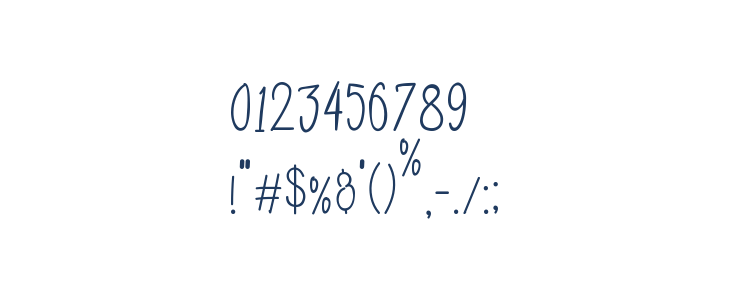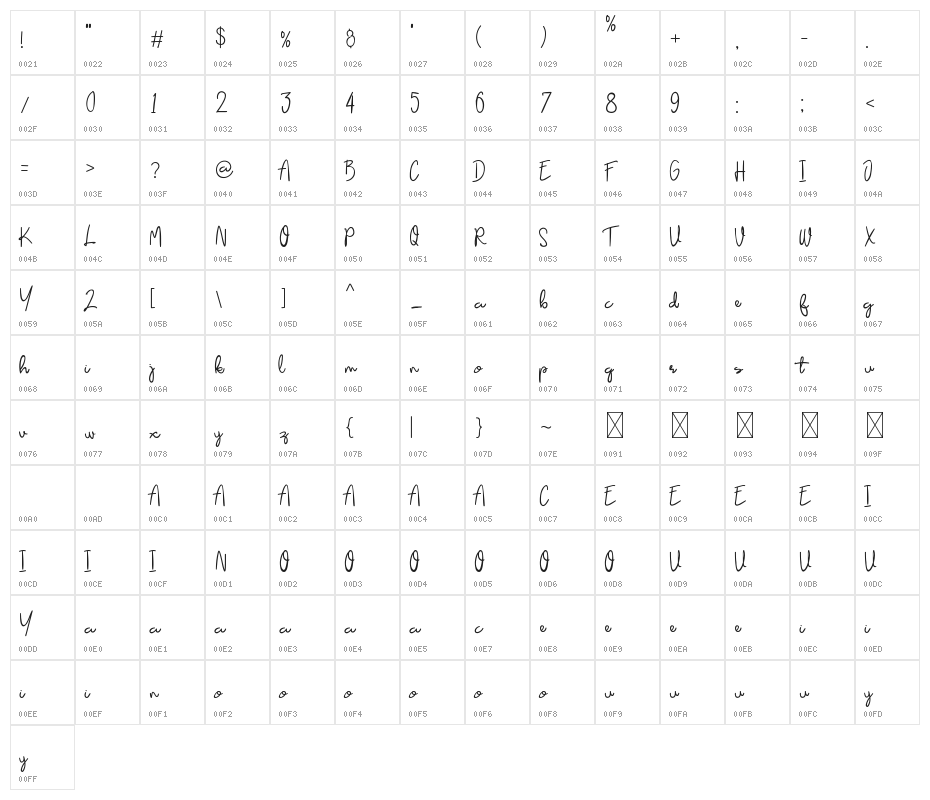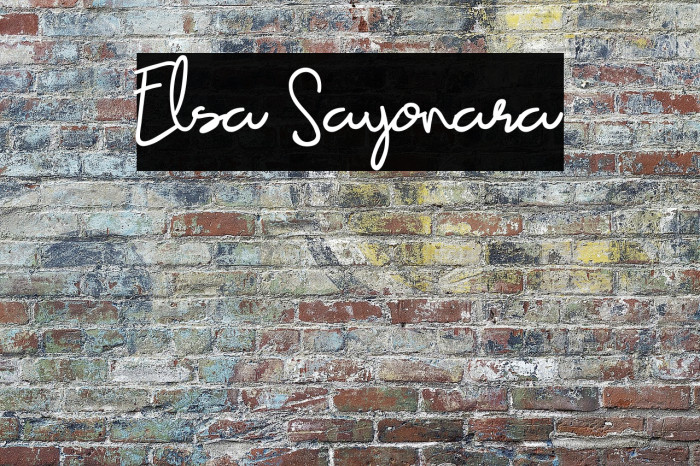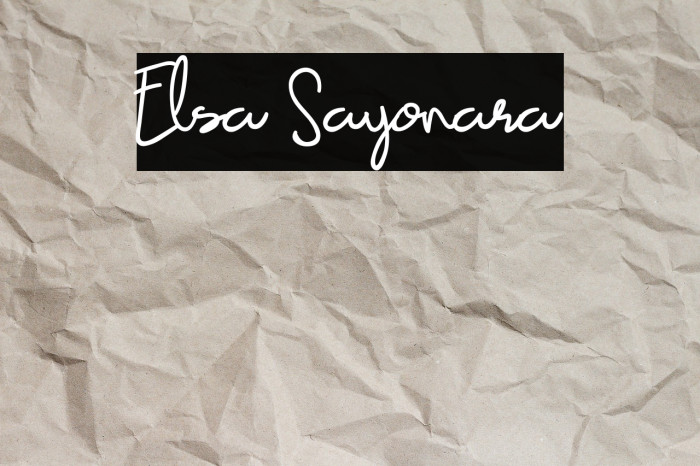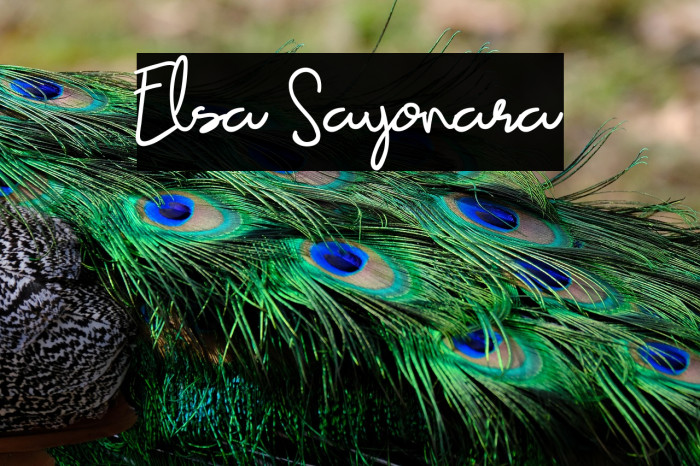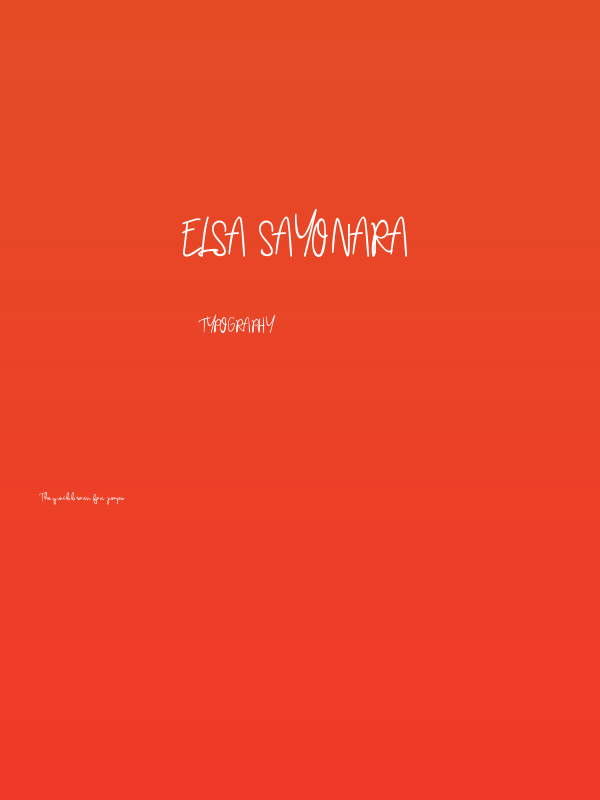
Elsa Sayonara Font
Elsa Sayonara Description
This font exhibits a playful and casual handwritten style, characterized by its fluid and dynamic strokes. The uppercase letters are tall and slightly narrow, with a whimsical flair that adds a touch of personality. The lowercase letters maintain a consistent flow, enhancing the handwritten feel. Numbers are clear and legible, matching the overall style. Special characters are creatively integrated, maintaining the font's cohesive look. The font's informal and friendly appearance makes it suitable for projects that require a personal touch.